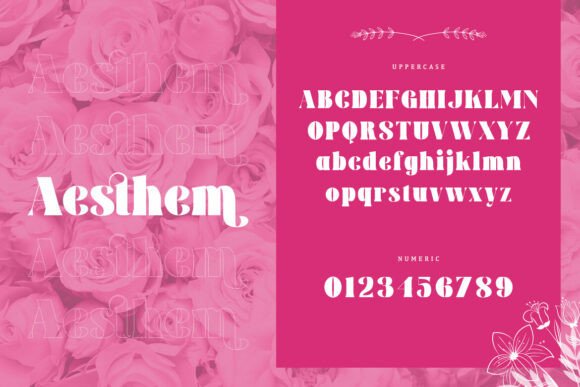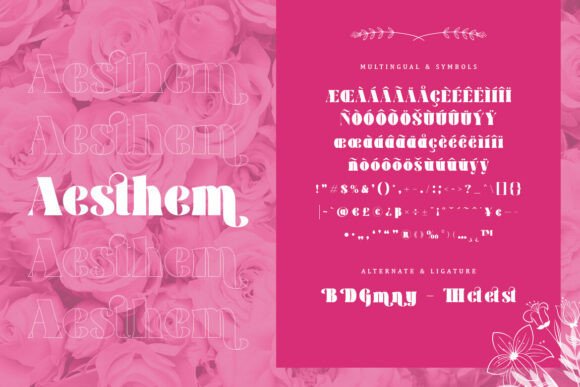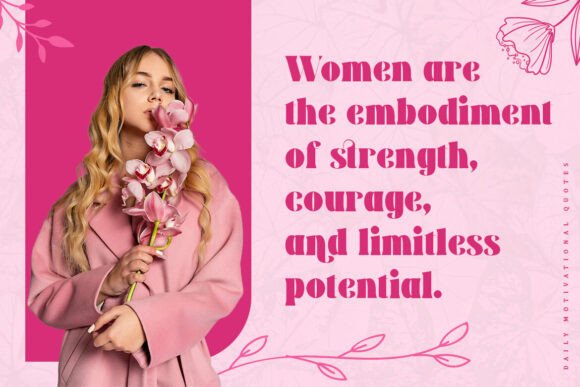
Introduction to Aesthem Font
Aesthem is a unique, bold display serif typeface that brings elegance and strength together in perfect harmony.
With its high-contrast strokes, sharp serifs, and artistic curves, Aesthem is designed to make a bold statement in logos, headlines, posters, packaging, and editorial layouts Its refined yet expressive design gives your typography a luxurious, fashion-forward vibe that stands out in both print and digital media.
Key Features of Aesthem Font
Why Choose Aesthem Font?
Aesthem Font offers exceptional quality and versatility, making it a valuable addition to your design toolkit. Whether you’re creating for personal projects or commercial use, Aesthem Font delivers professional results.